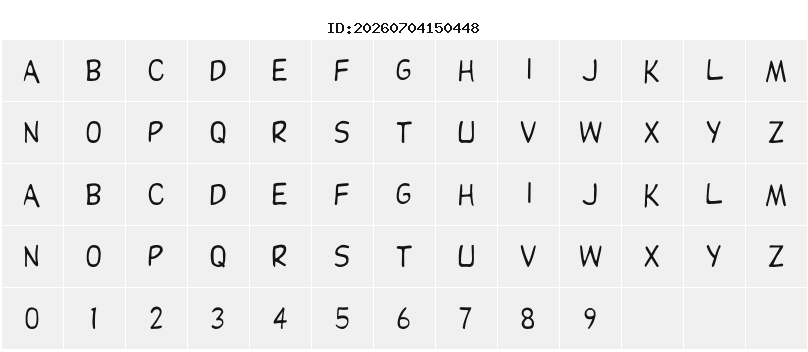
DupuyREGular Preview
• Font Name: DupuyREGular
• Full Font Name: DupuyREGular
• PostScript Name: DupuyREGular
About DupuyREGular.ttf
DupuyREGular.ttf is a modern, elegant sans-serif font designed for ultimate readability and visual harmony. Perfect for branding, headlines, web design, and print materials.